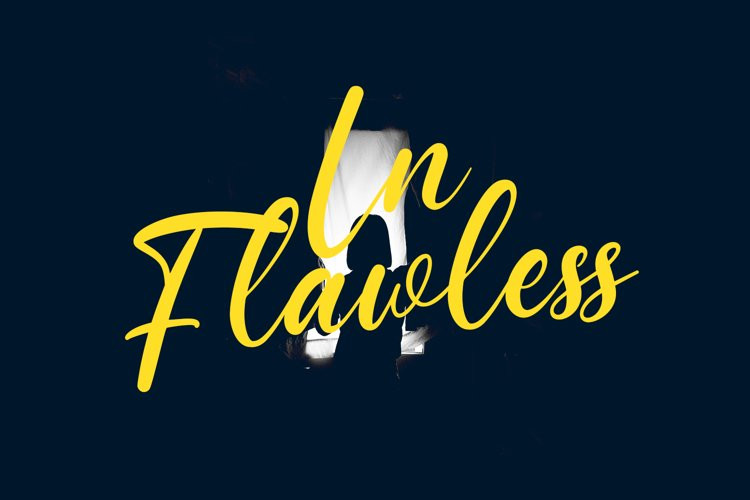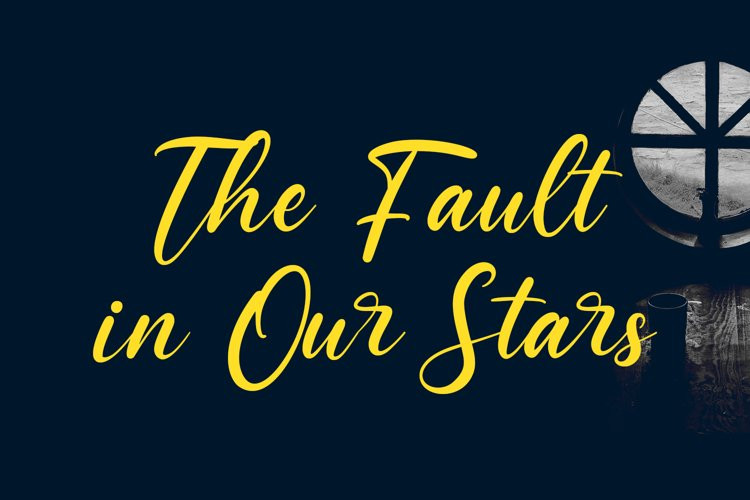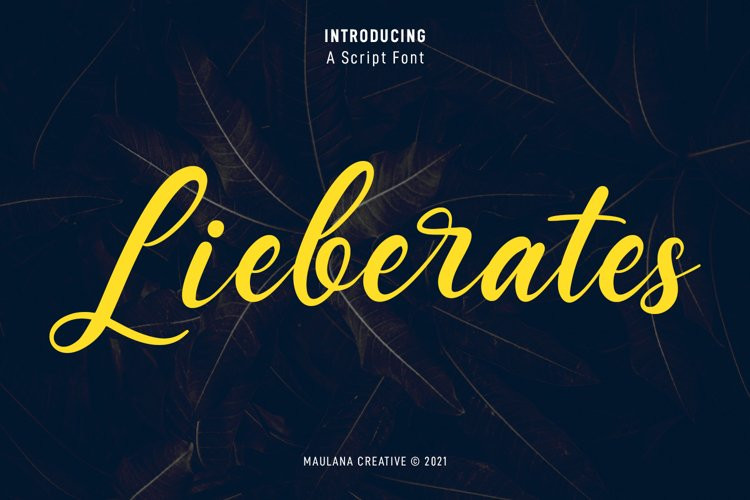
Lieberates Font
Lieberates FontLieberates is a cursive script font. With high contrast stroke, fun character with a bit of ligatures. To give you an extra creative work. Lieberates font support multilingual more than 100+ language. This font is good for logo design, Social media, Movie Titles, Books Titles, a short text even a long text letter and good for your secondary text font with sans or serif. Make a stunning work with Lieberates font.